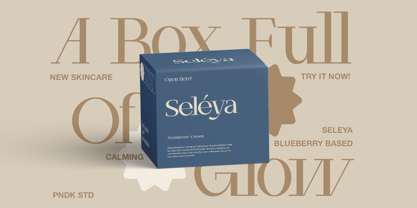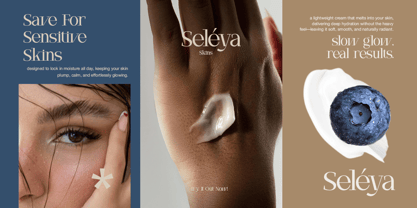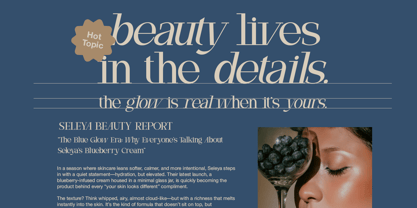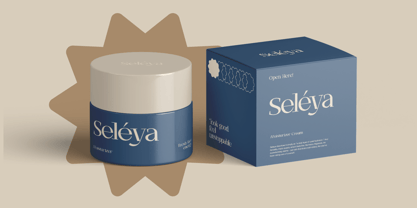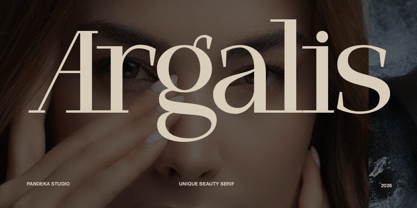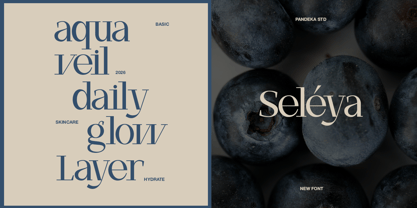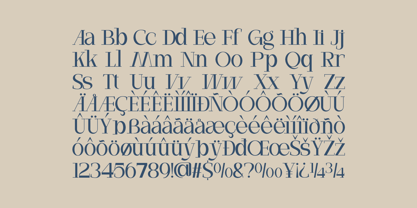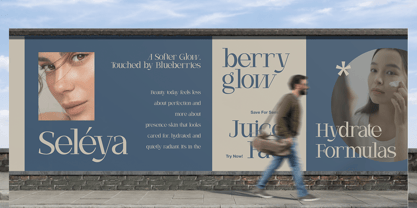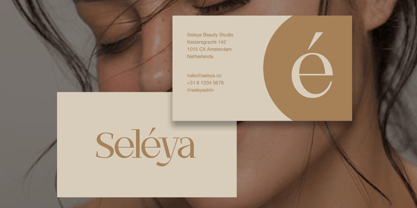
Argalis
by Pandeka Studio
The Argalis Font Family was designed by Sagara Nararya and published by Pandeka Studio. Argalis contains 2 styles and family package options. More about this family
Argalis is a unique beauty-inspired serif font that blends modern elegance with refined character. Featuring smooth curves, stylish contrast, and distinctive letterforms, Argalis delivers a sophisticated and graceful aesthetic, perfect for skincare brands, cosmetic packaging, editorial layouts, and premium visual identities.
Available in 2 styles: Regular and Oblique, Argalis offers versatility for creating harmonious typographic compositions with a subtle expressive touch. Whether used for branding, product design, or digital campaigns, this font brings a clean, luxurious, and contemporary feel that elevates every design.
• 2 Style: Regular and Oblique
• Full Character Set: Uppercase, lowercase, numbers, symbols, and punctuation
Designers: Sagara Nararya
Current Foundry: Pandeka Studio